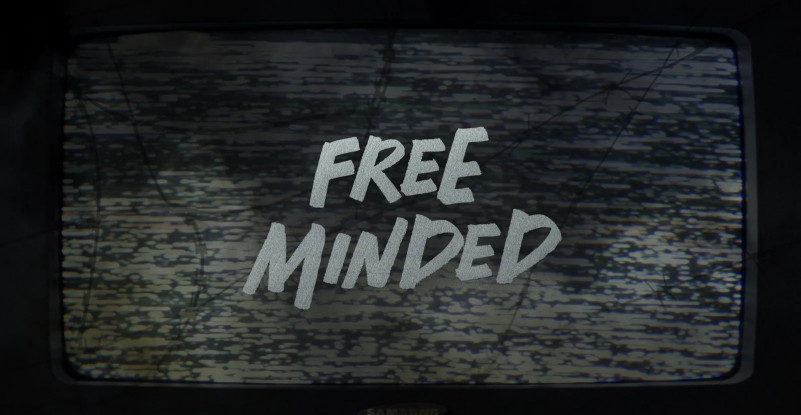
Free Minded Font
Free Minded Brush Font, This font is perfect for stickers, retro projects, craft projects, shirts, svg designs, procreate designs, branding, blogs, logos, invitations and more!